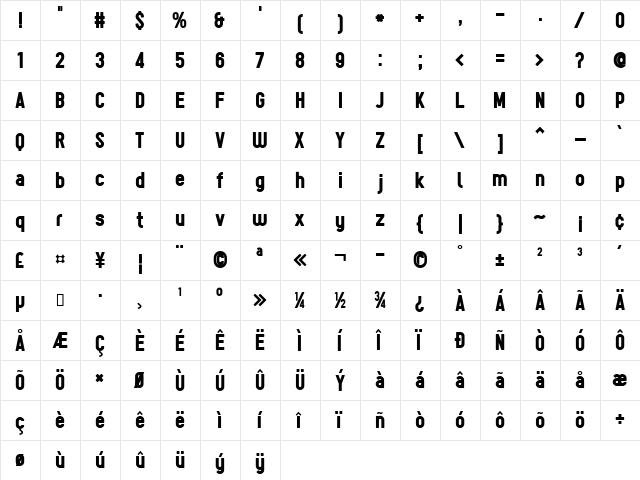
Sugo Regular
| Foundry | Studio Kmzero |
| Designer | francesco Canovaro |
Design Context for Sugo Typeface
Sugo offers clean, dependable letterforms without strong stylistic allegiance, making it a practical choice for designers who need flexibility.
Pro Tip: Pair Sugo with a font of contrasting weight or personality to build a more expressive typographic hierarchy.